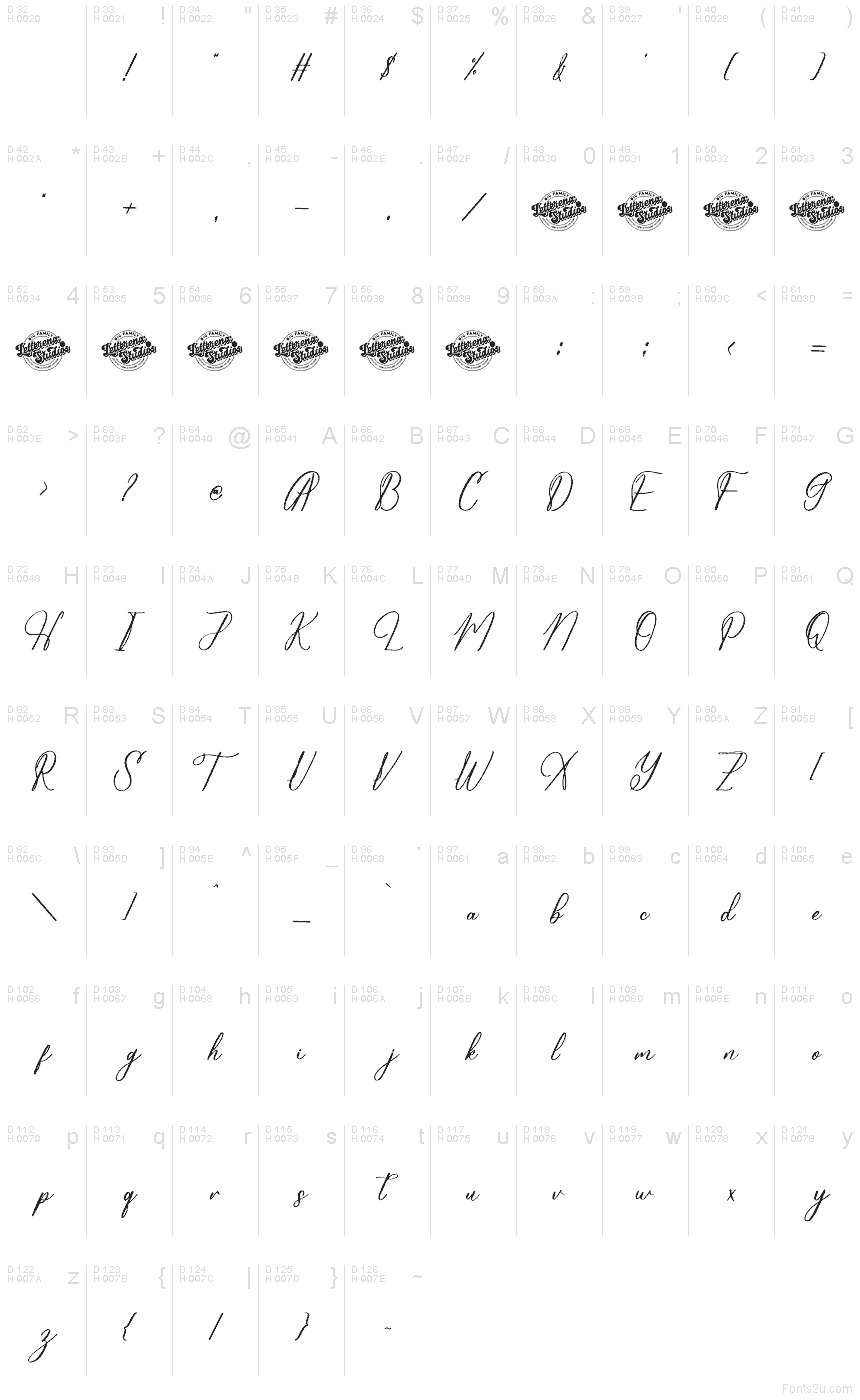
Hearthorin DEMO VERSION
Hearthorin font by Letterena Studios is a free handwritten script typeface. Swooping capitals, long ribbon‑like loops, and smooth, inky connections give it a chic, signature feel without turning fussy. The rhythm stays airy and even, so names, short phrases, and taglines read gracefully at medium sizes.
Using Hearthorin, you can elevate wedding invitations, brand signatures, boutique logos, product labels, thank‑you cards, social media quotes, and watermark marks. The gentle contrast and relaxed spacing bring a polished, personal tone that feels warm rather than sugary. Pair this free font with a light, neutral sans for body copy, and let Hearthorin handle the headlines or names for a clean, modern balance.